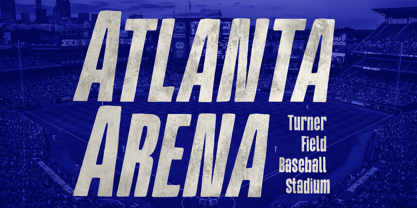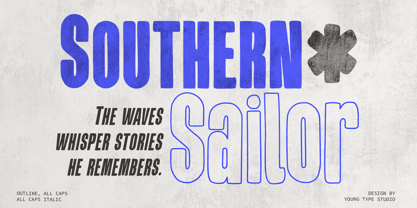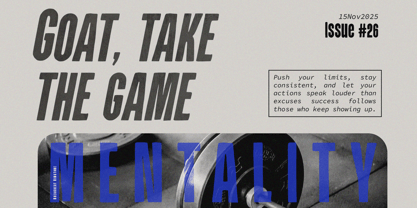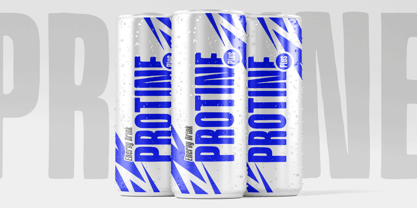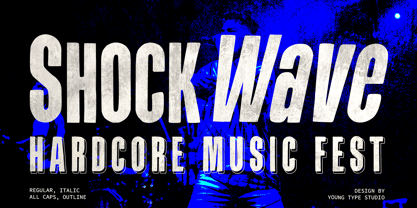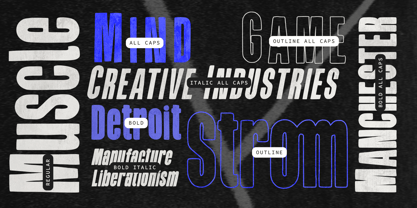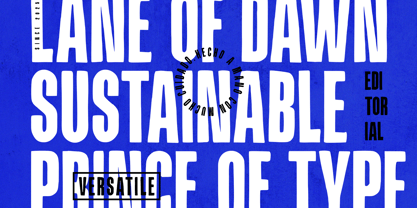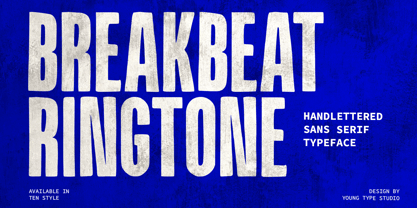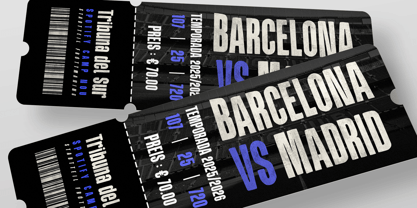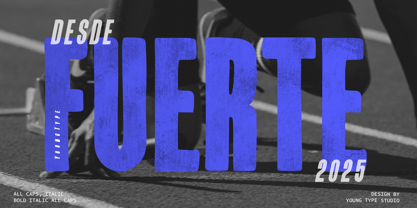
Breakbeat Ringtone
by Youngtype
The Breakbeat Ringtone Font Family was designed by Naufal Paramata and published by Youngtype. Breakbeat Ringtone contains 10 styles and family package options. More about this family
Breakbeat Ringtone is a bold, hand-lettered sans serif typeface with a rough, textured appearance that gives it a gritty and expressive personality. Its tall, condensed letterforms and slightly irregular shapes create a raw, energetic look, perfect for music-themed designs, streetwear branding, posters, and bold headlines. Designed by Young Type Studio, this font is available in ten styles, offering versatility while maintaining a strong, rebellious character that stands out in any creative project.
Designers: Naufal Paramata
Foundry: Youngtype